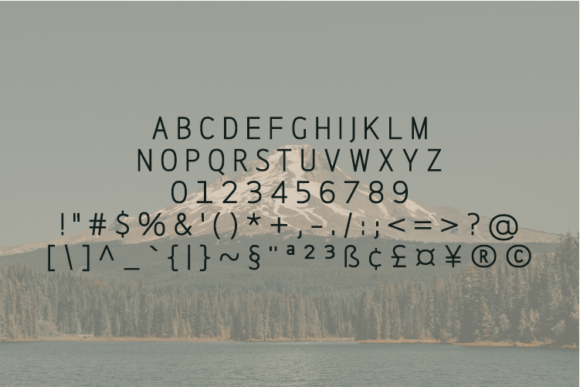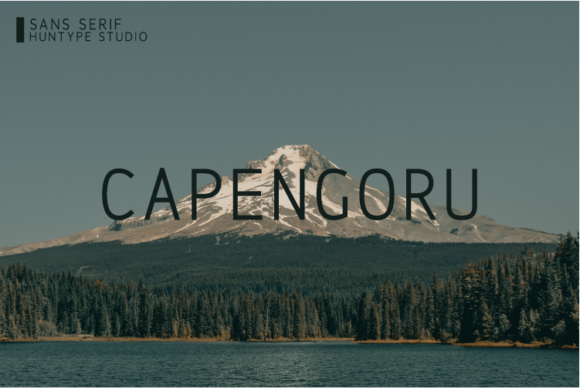
Introducing Capengoru Font: Elevate Your Designs with Elegance and Versatility
In the world of typography, fonts play a crucial role in conveying the tone and aesthetic of a design. For designers and crafters seeking a modern, sophisticated look, Capengoru font is an exceptional choice. This stunning, contemporary sans serif font is engineered to provide an exquisite, yet subtle appearance, paired with maximum versatility.
The Essence of Capengoru Font
Capengoru is a fancy, contemporary sans serif font that embodies the perfect blend of elegance and simplicity. Its clean lines, precise curves, and balanced structure make it an ideal choice for a wide range of design applications. Whether you’re working on a luxury brand logo, a high-end product packaging, or a stylish website, Capengoru font ensures that your design exudes refinement and poise.
Key Features of Capengoru Font
- Contemporary Design: Capengoru boasts a modern sans serif design that instantly elevates the visual appeal of your projects.
- Elegant and Subtle: The font’s subtle sophistication makes it perfect for designs that require a touch of luxury and refinement.
- Highly Versatile: With its clear and readable structure, Capengoru can be used across various mediums, from digital platforms to print materials.
- Wide Range of Applications: Ideal for logos, branding, packaging, websites, magazines, and any project that demands a high-end typography solution.
For designers and crafters, finding the right font can be a daunting task. Capengoru font offers several benefits that make it a go-to choice:
- Time-Saving: With Capengoru, you can achieve a professional, high-end look without spending hours on custom typography.
- Consistency: The font’s uniformity ensures that your brand or design maintains a consistent visual identity.
- Creativity Boost: Capengoru’s unique yet versatile design inspires creativity, allowing you to experiment with various design concepts.
How to Use Capengoru Font Effectively
To maximize the potential of Capengoru font, consider the following tips:
- Pair with Complementary Fonts: Combine Capengoru with serif fonts for a classic contrast or with other sans serifs for a modern, layered look.
- Experiment with Sizes and Weights: Utilize different sizes and weights to create visual hierarchy and emphasize key elements in your design.
- Adjust Letter Spacing: Fine-tune letter spacing to achieve the perfect balance between elegance and readability.
Capengoru font is a game-changer for designers and crafters aiming to infuse their projects with a touch of elegance and sophistication. Its contemporary sans serif design, paired with exceptional versatility, makes it a valuable asset in any design toolkit. By incorporating Capengoru into your workflow, you’ll be able to create stunning, high-end designs with ease and efficiency.